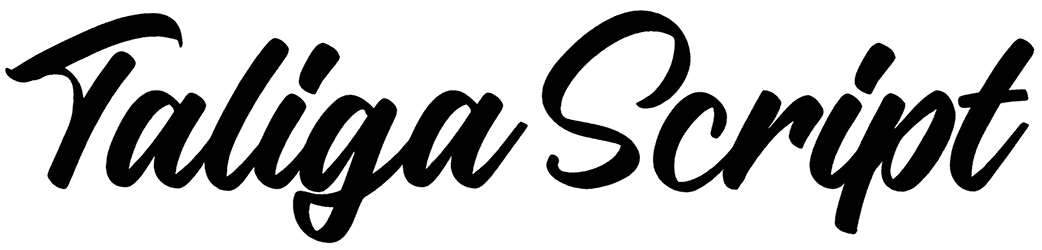
A professional graphic artist must be very attentive in the field of choosing fonts and should never overlook a magical script font such as Taliga Script that has the true potential of adding a feeling of dynamic, uniqueness, softness, or vitality to a wide set of graphic content like magazines, billboards, product packaging, or blog posts.